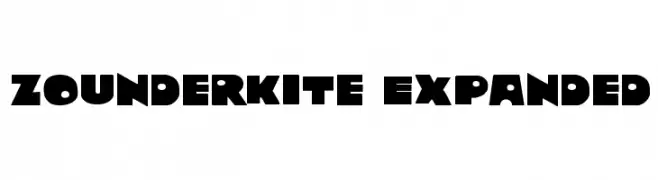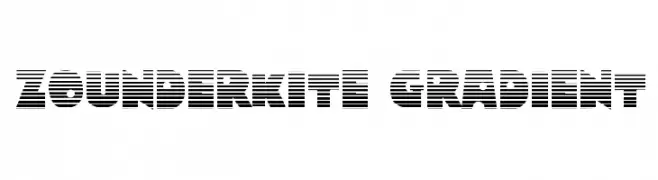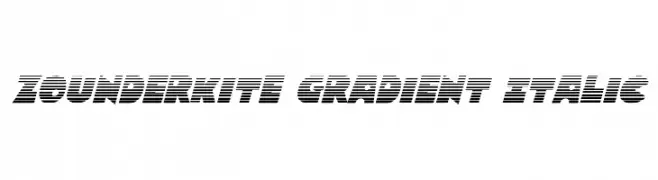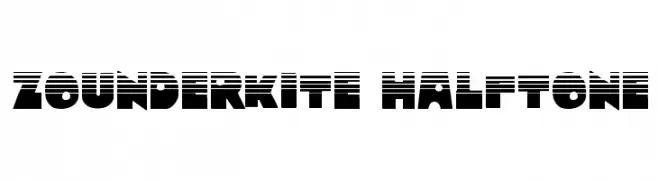
A bold, playful font with rounded, expanded characters and a retro vibe.
A bold, expanded, and italic font with a modern, dynamic style.
A bold, modern font with a unique horizontal striped pattern.
A bold, italicized font with a gradient effect created by horizontal stripes.
A bold, halftone-patterned font with a modern and dynamic style.